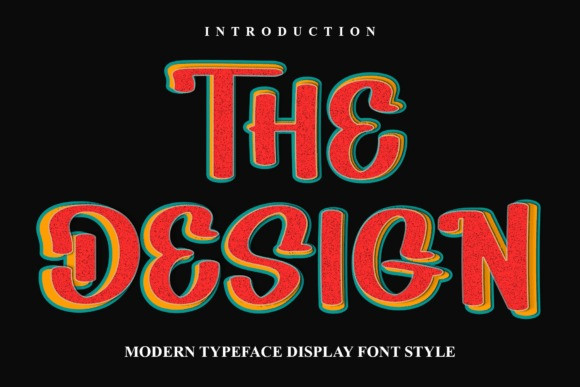
The Design Font
The Design Font is a sweet and cursive handwritten font. This gentle font will look gorgeous on a variety of design ideas. It will add a joyful and romantic touch to each of your projects!